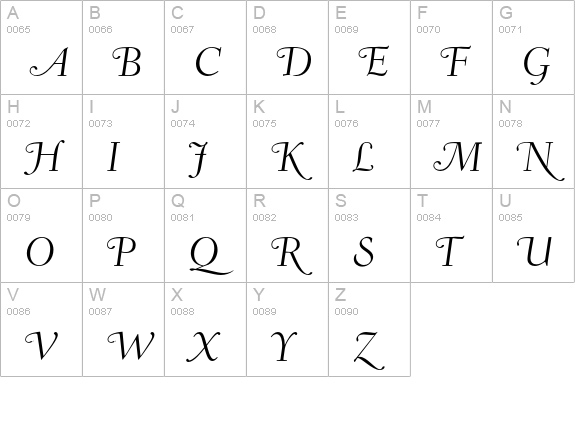
Fairfield LH 46 Swash Light Italic Old Style Figures Font Details
Fairfield LH 46 Swash Light Italic Old Style Figures is a refined, elegant, italic variant in the Fairfield typeface family \xE2\x80\x94 well suited to elegant body text, refined sub-headings, and luxury branding.
Fairfield LH 46 Swash Light Italic Old Style Figures font is a graceful and elegant typeface that exudes sophistication and charm. With its delicate swashes and light italic styling, this font is perfect for adding a touch of class to any design project. The Old Style Figures add a vintage flair, making it ideal for use in branding, invitations, and editorial design. Best of all, Fairfield LH 46 Swash Light Italic Old Style Figures font is available for free download at FontsMarket.com. Simply visit the website to access this stunning font and elevate your designs with its timeless appeal.